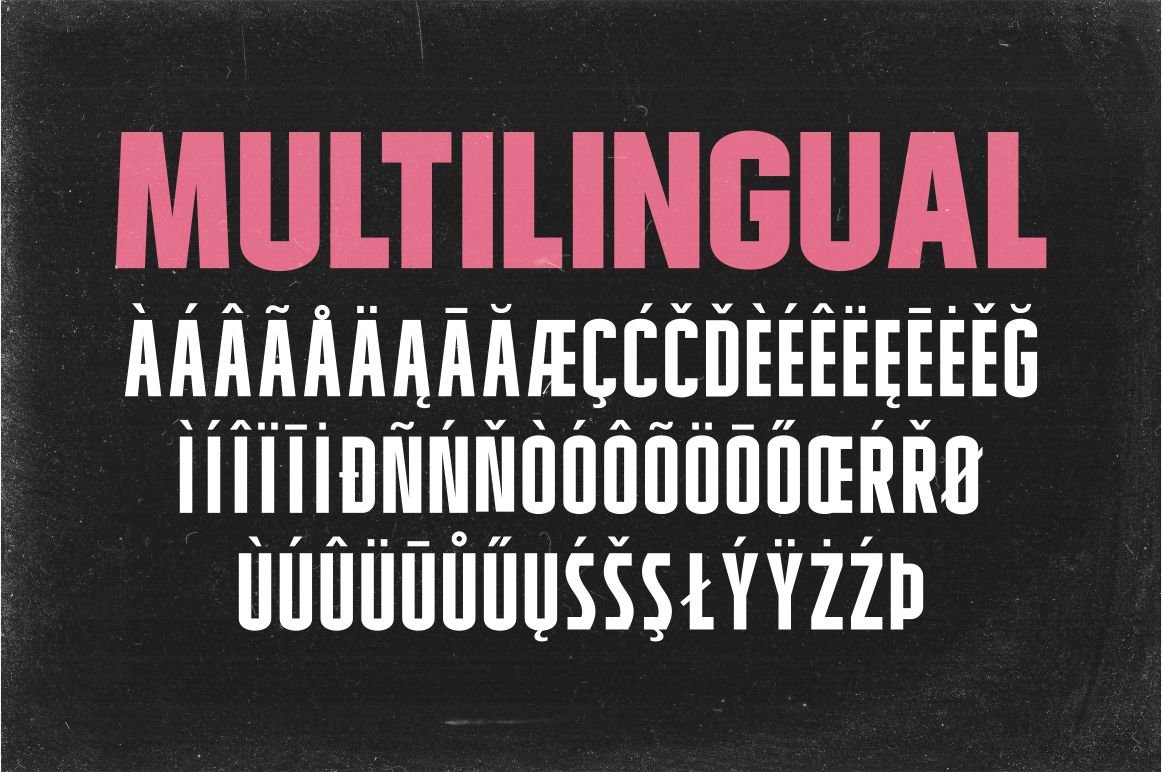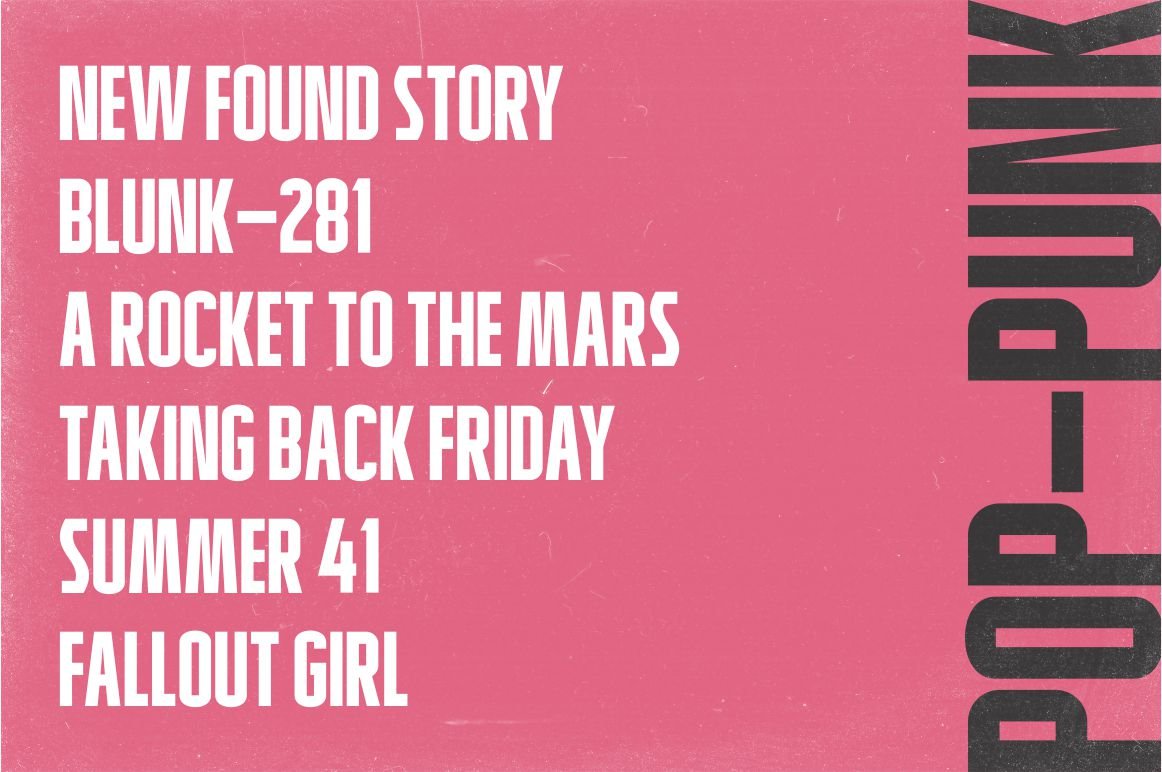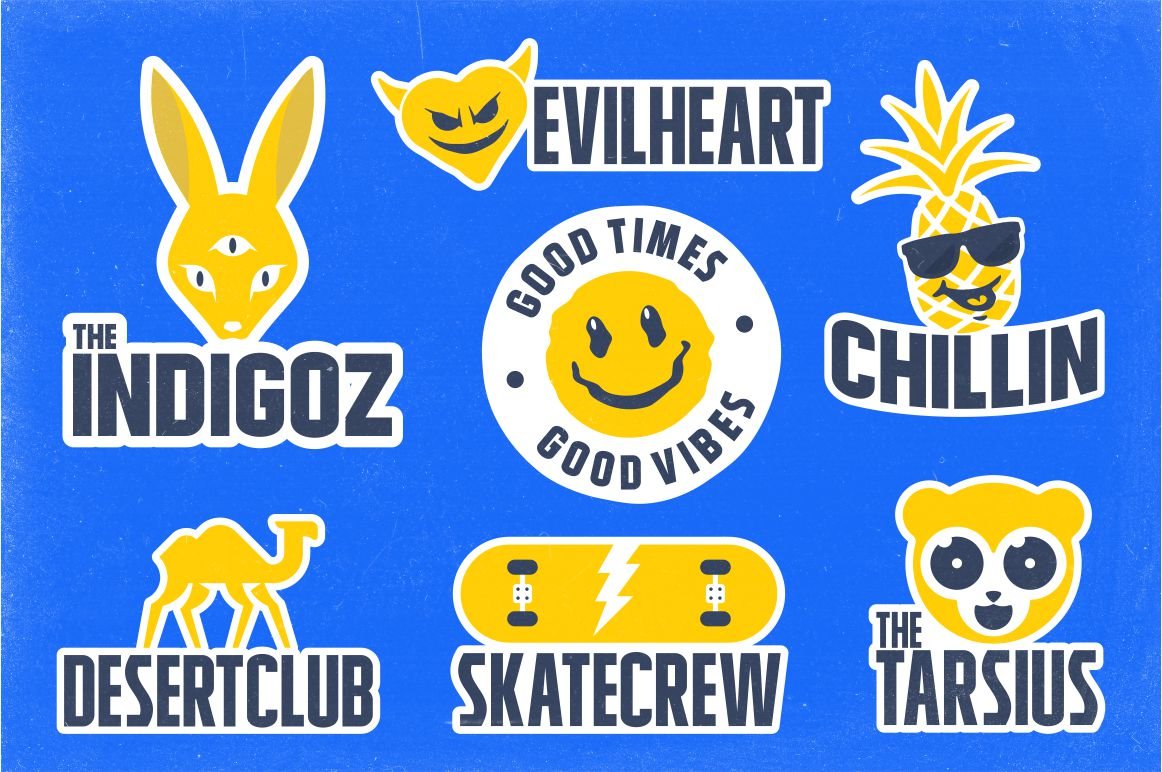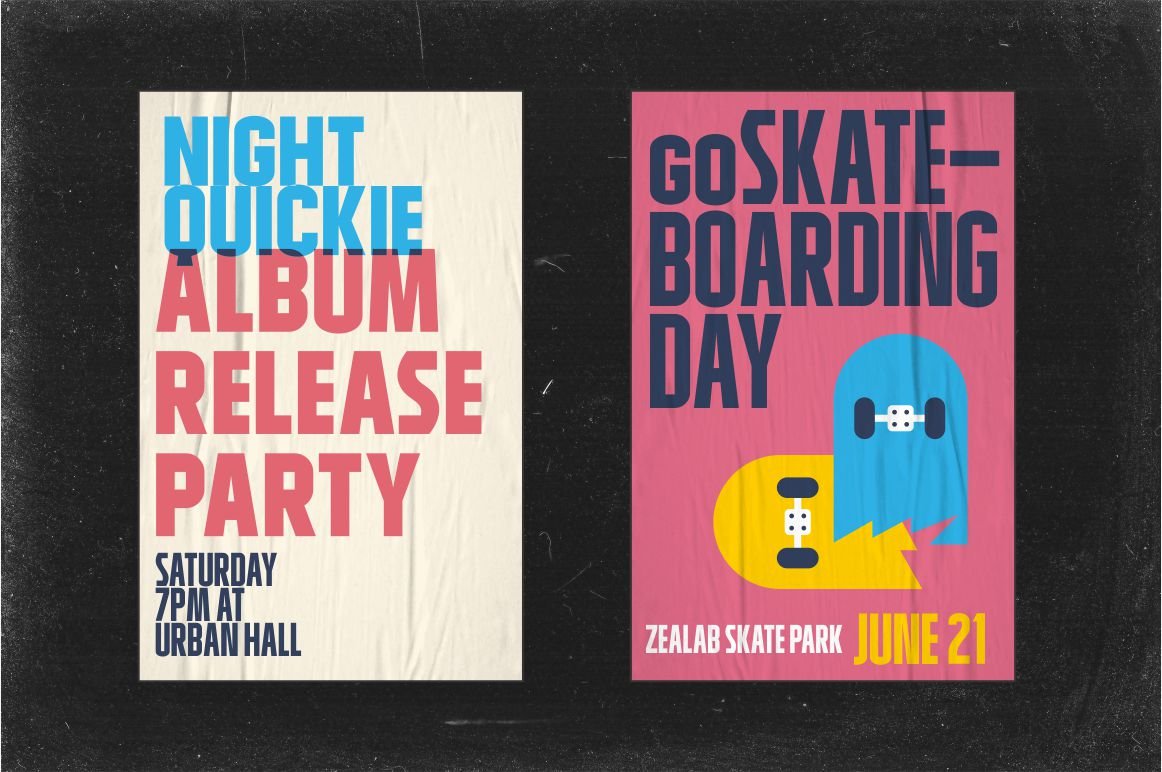
RICHSON is a font inspired by Pop Punk/Rock/Hardcore Music and the Skateboarding world. With Allcaps and multilingual support, RICHSON Really fit for Band wordmark, album cover , video tittle, sticker, clothing brand name, tshirt designs, badges designs, banner, flyer, etc. Just look how it performs on the preview that I have provided, you will see its capabilities. But it will also work well with other themes.
Richson